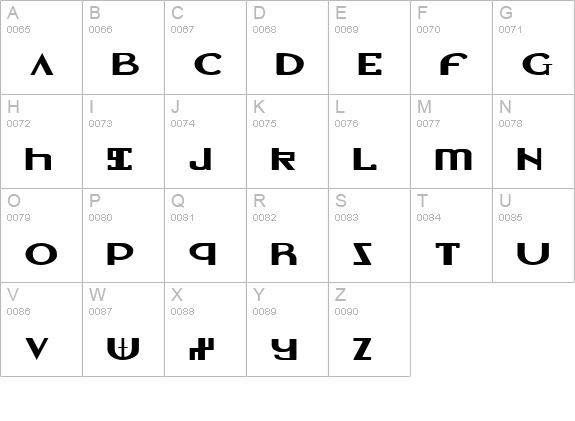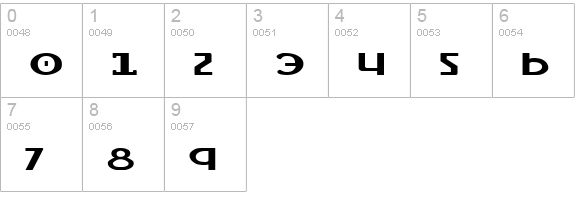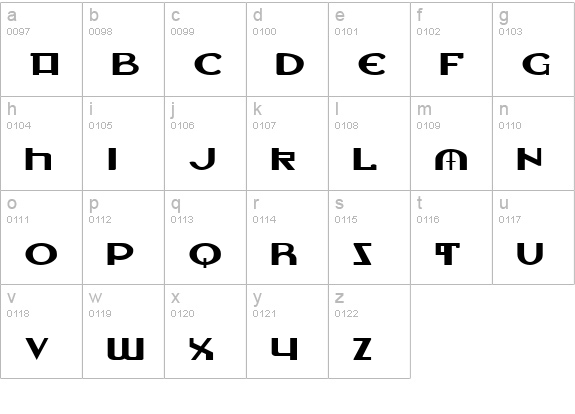
Lionheart Expanded Font Details
Lionheart Expanded is a distinctive, extended-width variant in the Lionheart typeface family \xE2\x80\x94 well suited to design and typography projects.
Lionheart Expanded is a striking and bold display font that exudes strength and power. With its clean lines and sharp edges, this font commands attention and makes a statement. Perfect for headlines, logos, and branding projects, Lionheart Expanded will give your designs a fierce and confident look. What sets Lionheart Expanded apart is not only its impressive design, but also the fact that it is available for free download at FontsMarket.com. This means you can add this dynamic font to your collection without any cost, making it a valuable asset for any designer or creative professional. Don't miss out on the opportunity to enhance your projects with the impactful style of Lionheart Expanded – download it today and unleash the lion within!